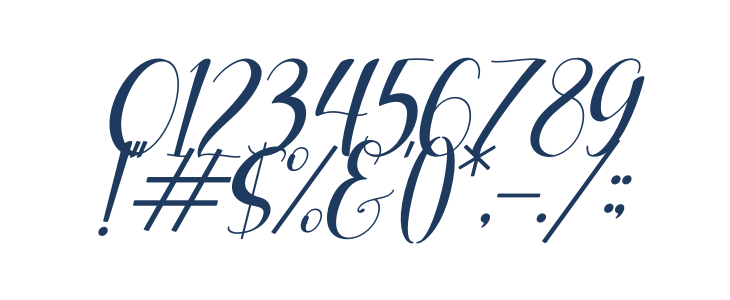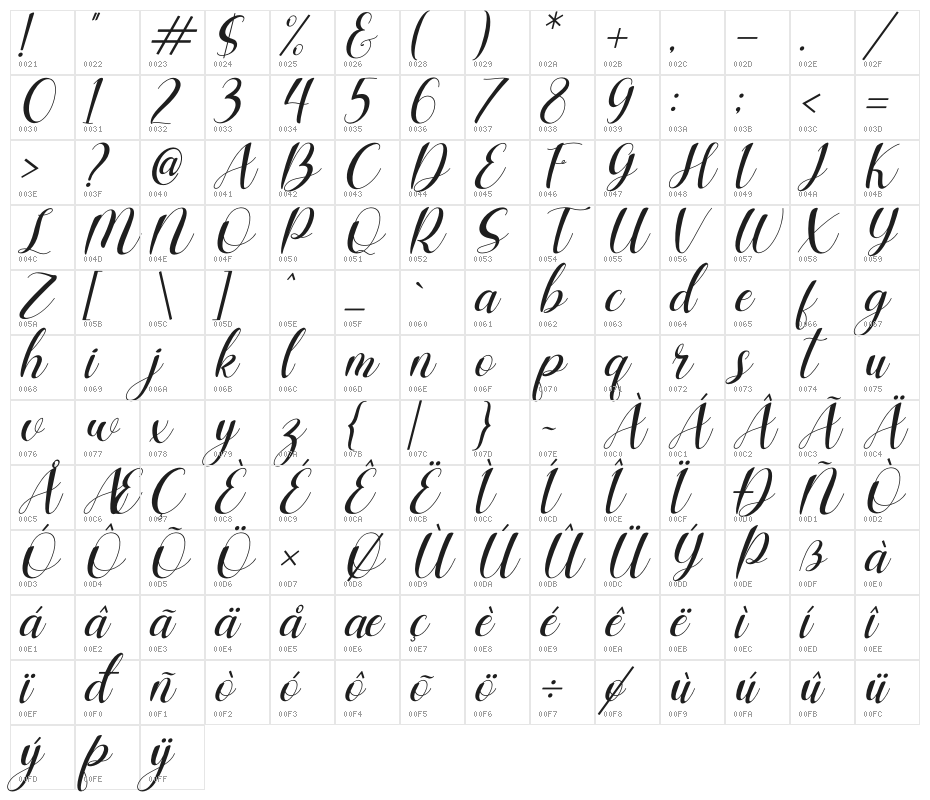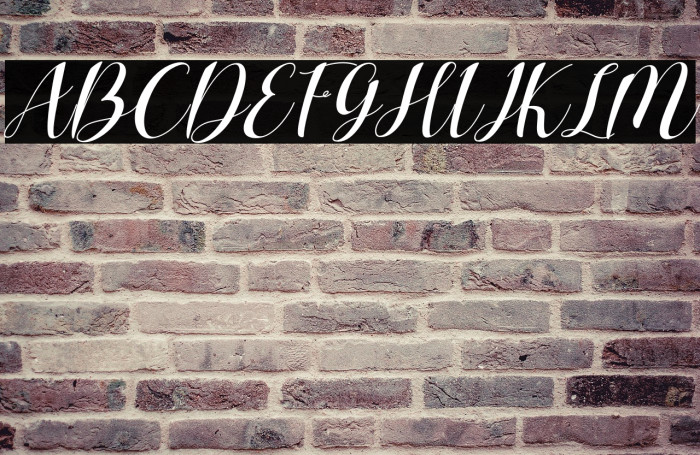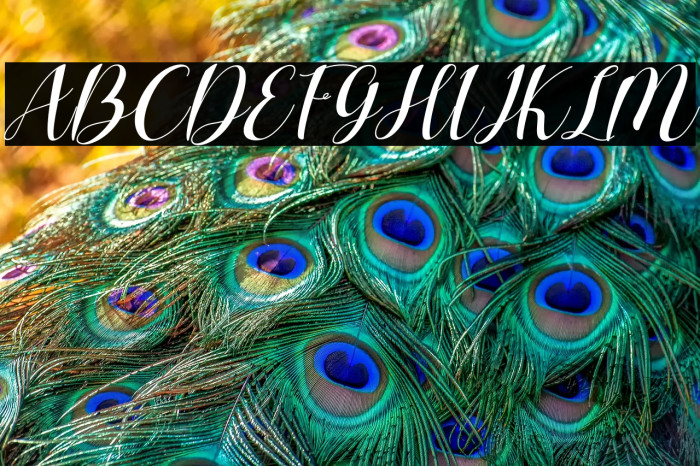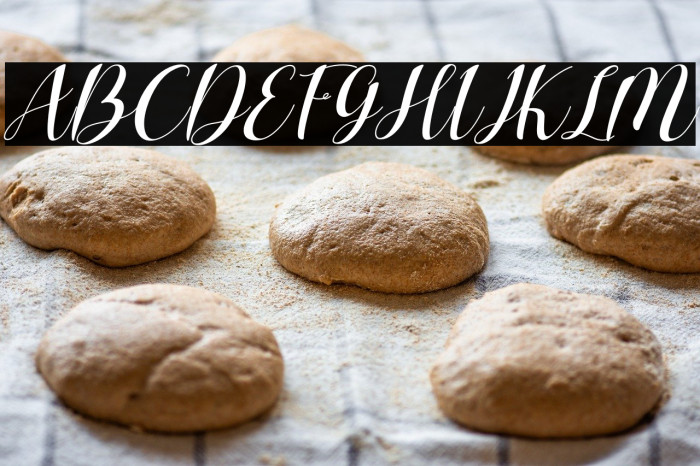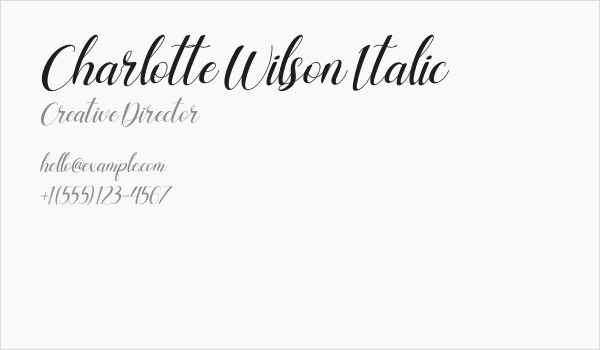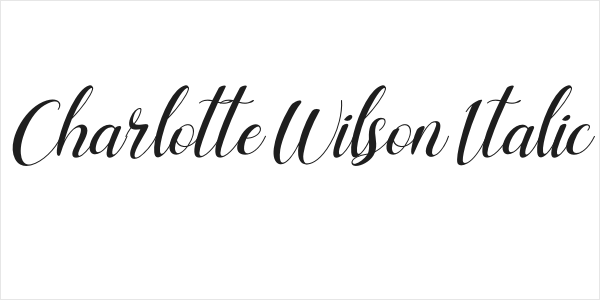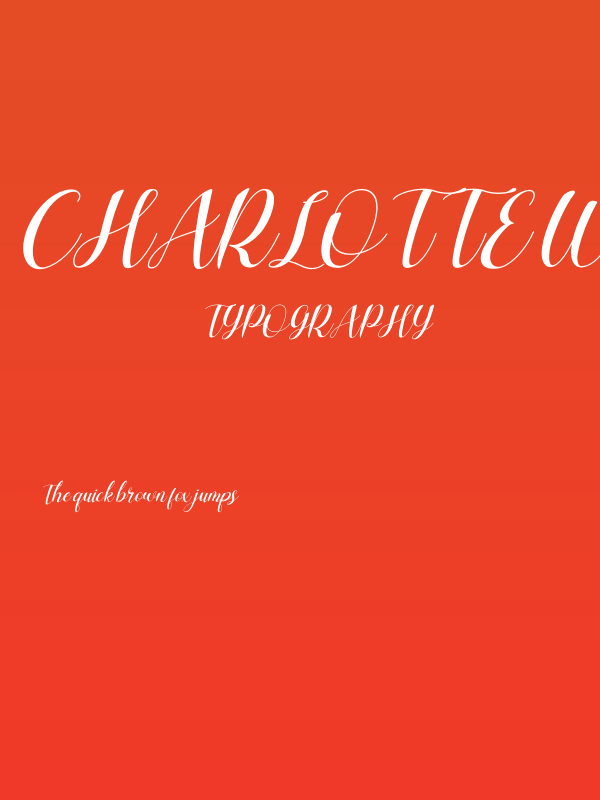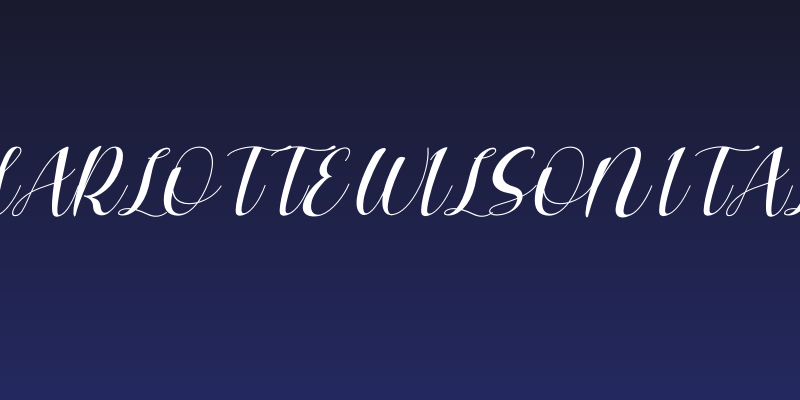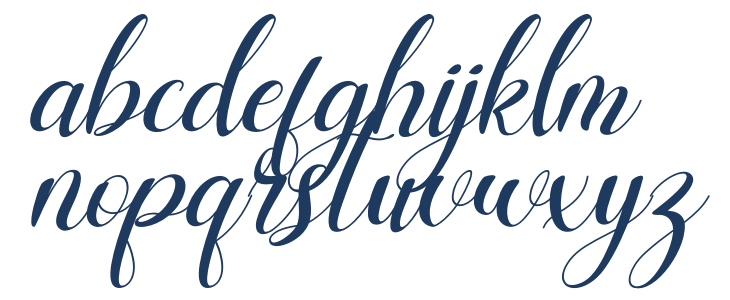
Charlotte Wilson Italic Font
Charlotte Wilson Italic Description
This elegant script font features a flowing, cursive style with a sophisticated flair. The letters are intricately connected, creating a seamless and fluid appearance. Each character is crafted with delicate curves and loops, giving it a graceful and refined look. The font maintains a consistent slant, enhancing its italic nature, and the strokes vary in thickness, adding a dynamic contrast. The uppercase letters are bold and prominent, while the lowercase letters are more delicate, providing a balanced visual appeal. This font exudes a sense of elegance and is perfect for projects that require a touch of sophistication.